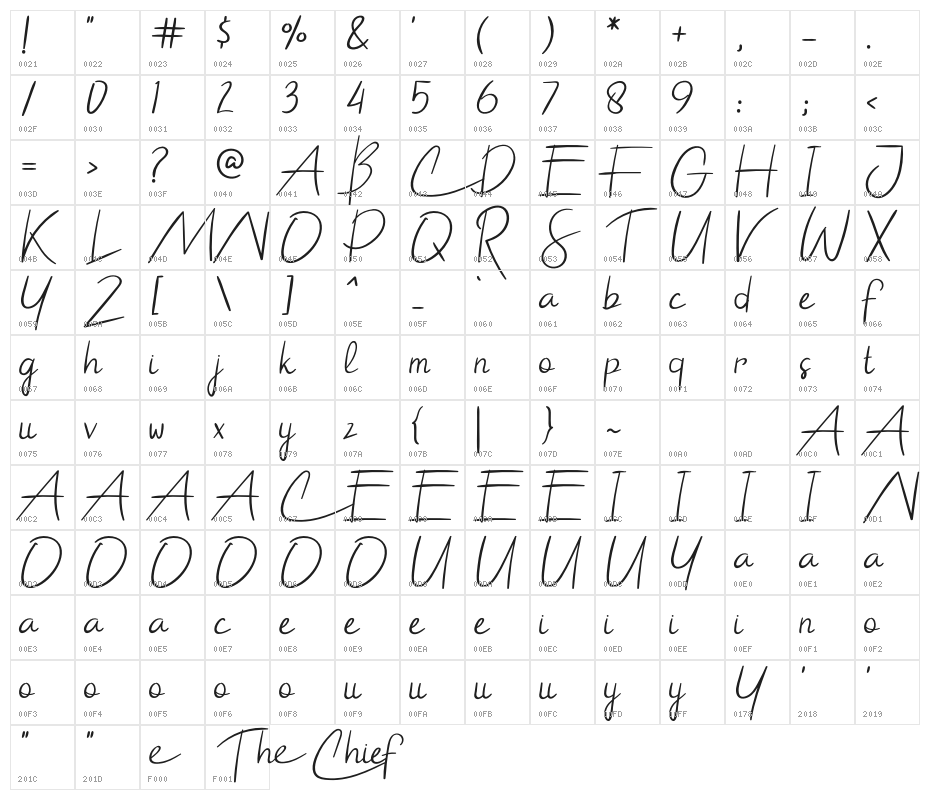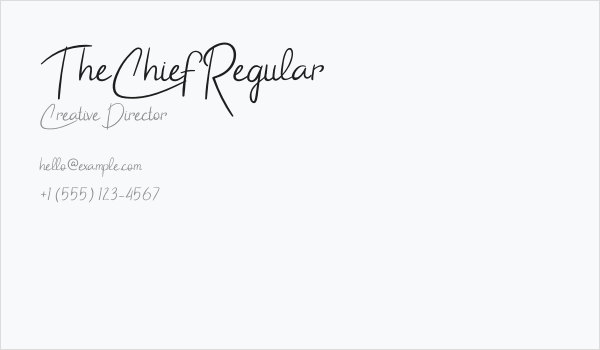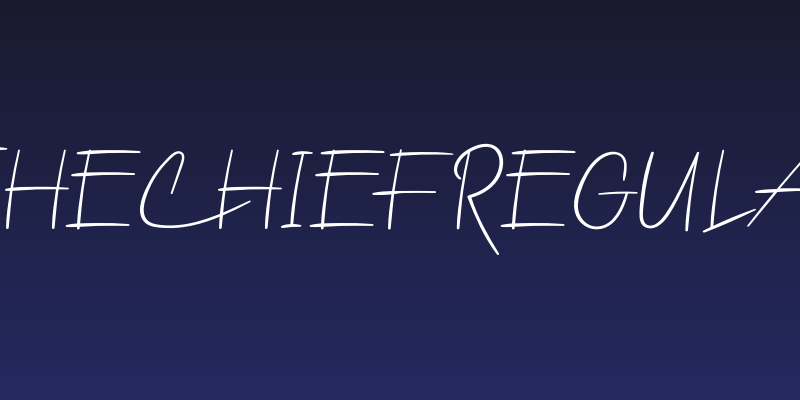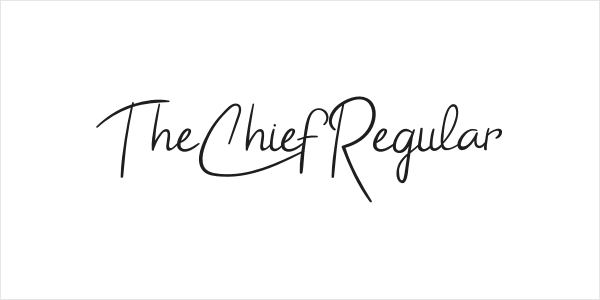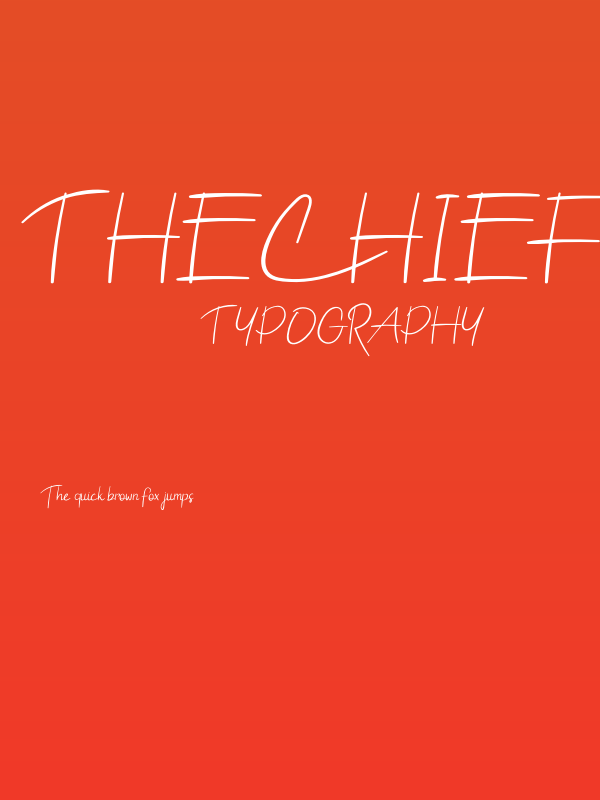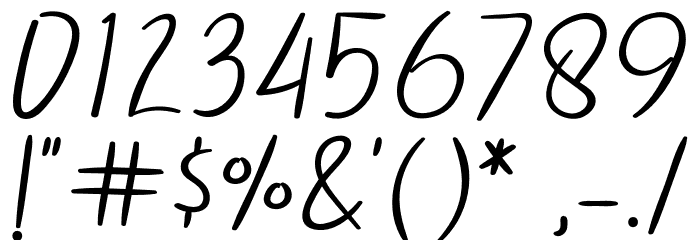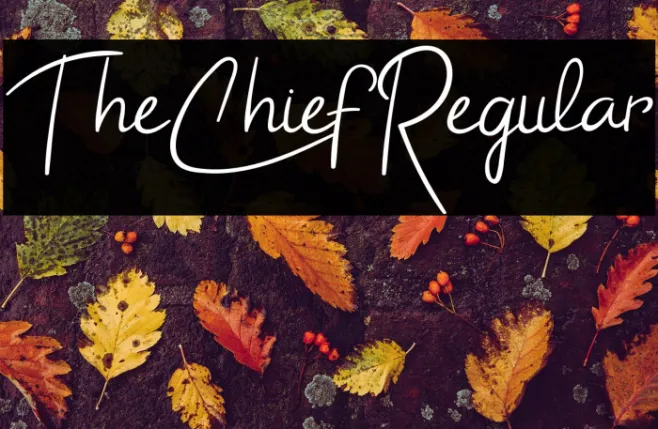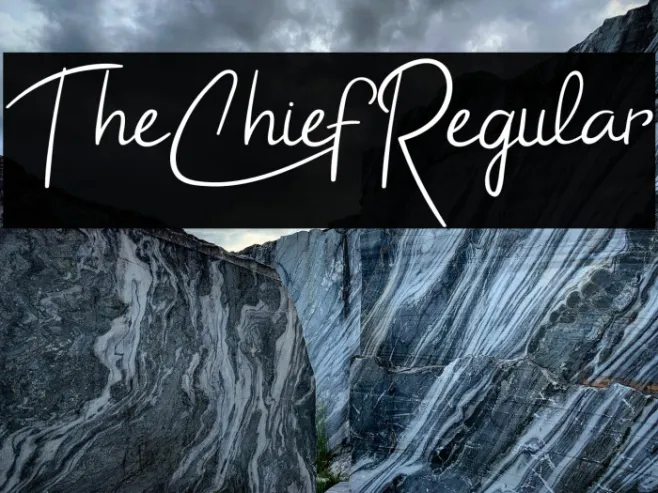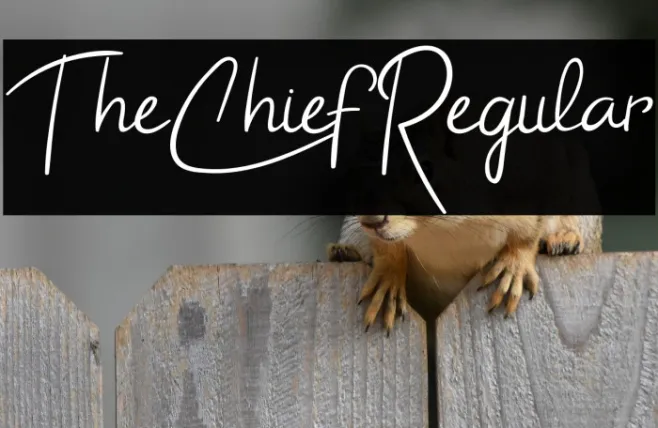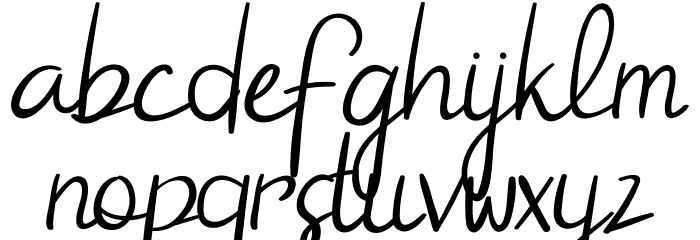
TheChiefRegular Font
TheChiefRegular Description
This font features a handwritten style with a casual and flowing appearance. The uppercase letters are tall and slender, with a slight slant that adds a dynamic feel. The lowercase letters are more rounded and connected, giving a sense of continuity and fluidity. Numbers are consistent with the overall style, maintaining the same slanted and handwritten look. Special characters are well-integrated, matching the playful and informal aesthetic. The strokes are consistent in width, providing a uniform appearance across all characters.
| Font Family | The Chief |
| Proposed Projects | Ideal for personal invitations, greeting cards, or any project requiring a personal touch. Suitable for branding that aims to convey friendliness and approachability. |